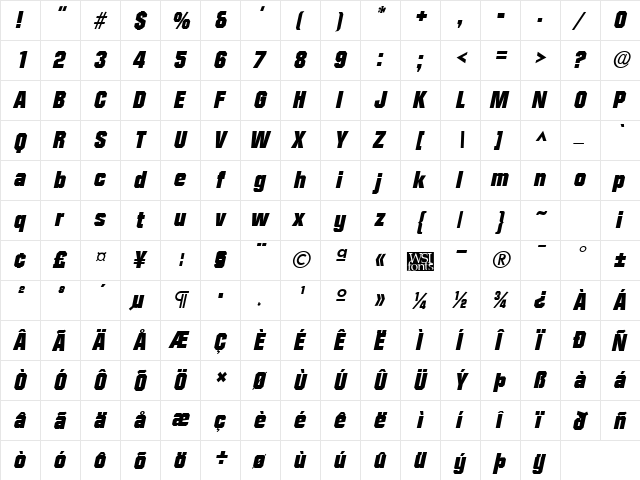
FacetBlack Italic
Design Context for FacetBlack Typeface
FacetBlack is a composed and adaptable typeface that performs quietly and consistently across a wide range of design contexts. The slanted form adds forward momentum and visual energy.